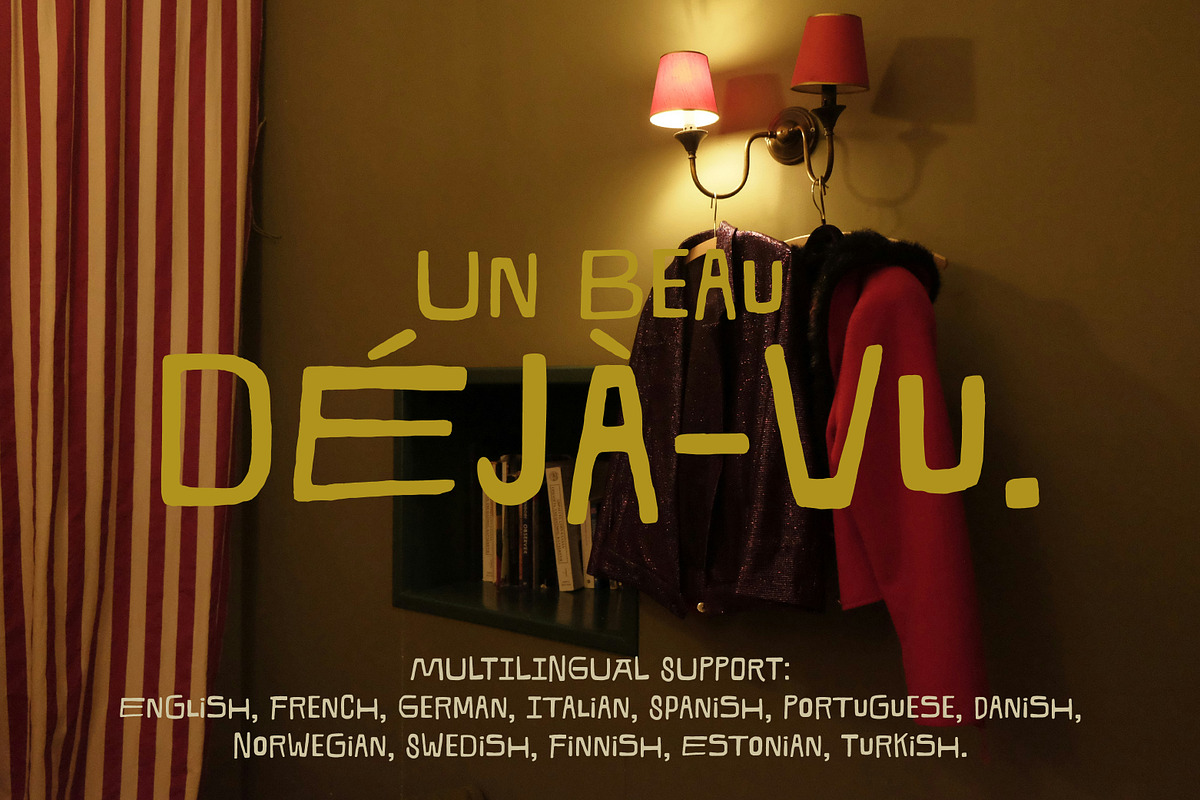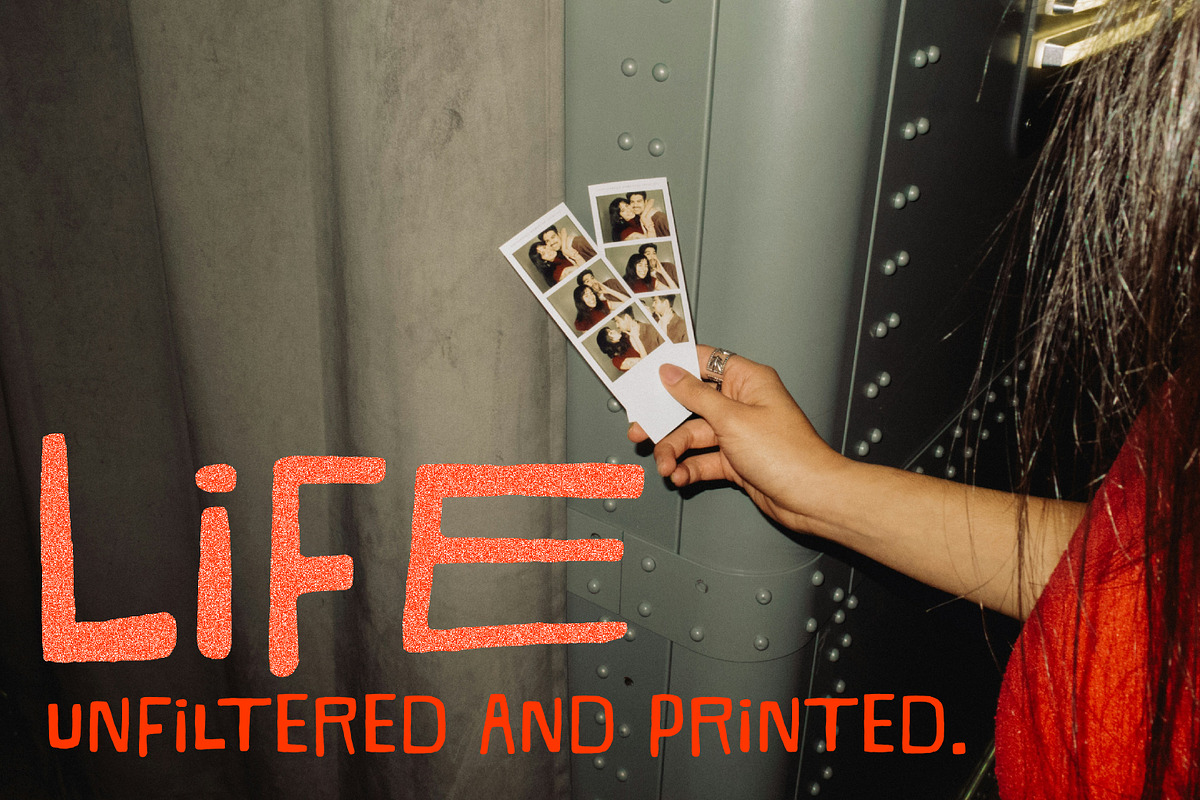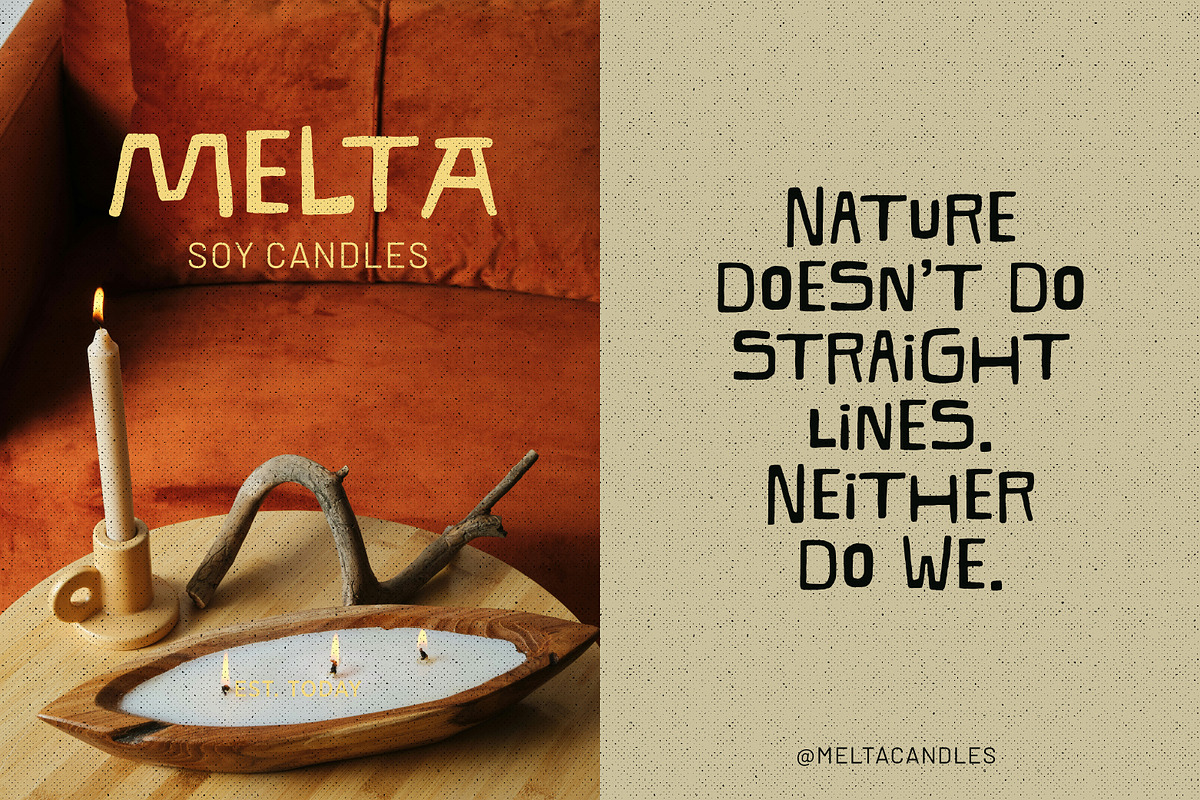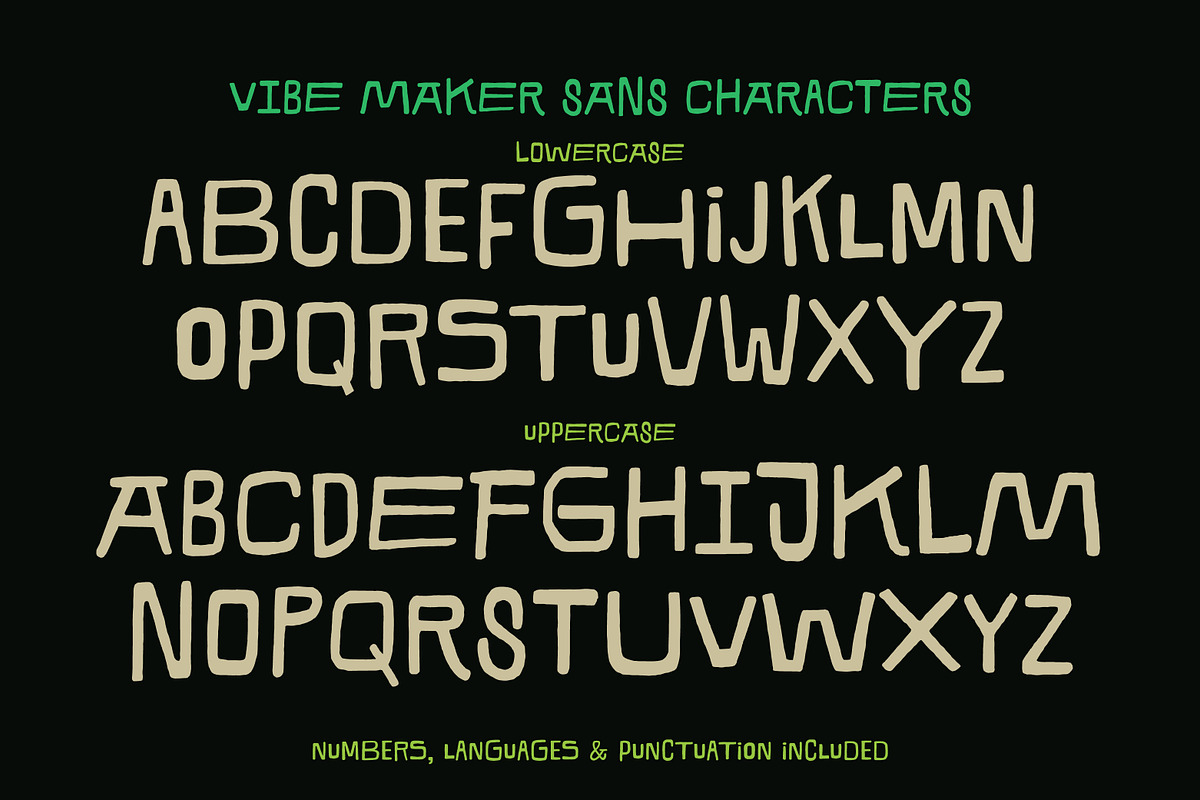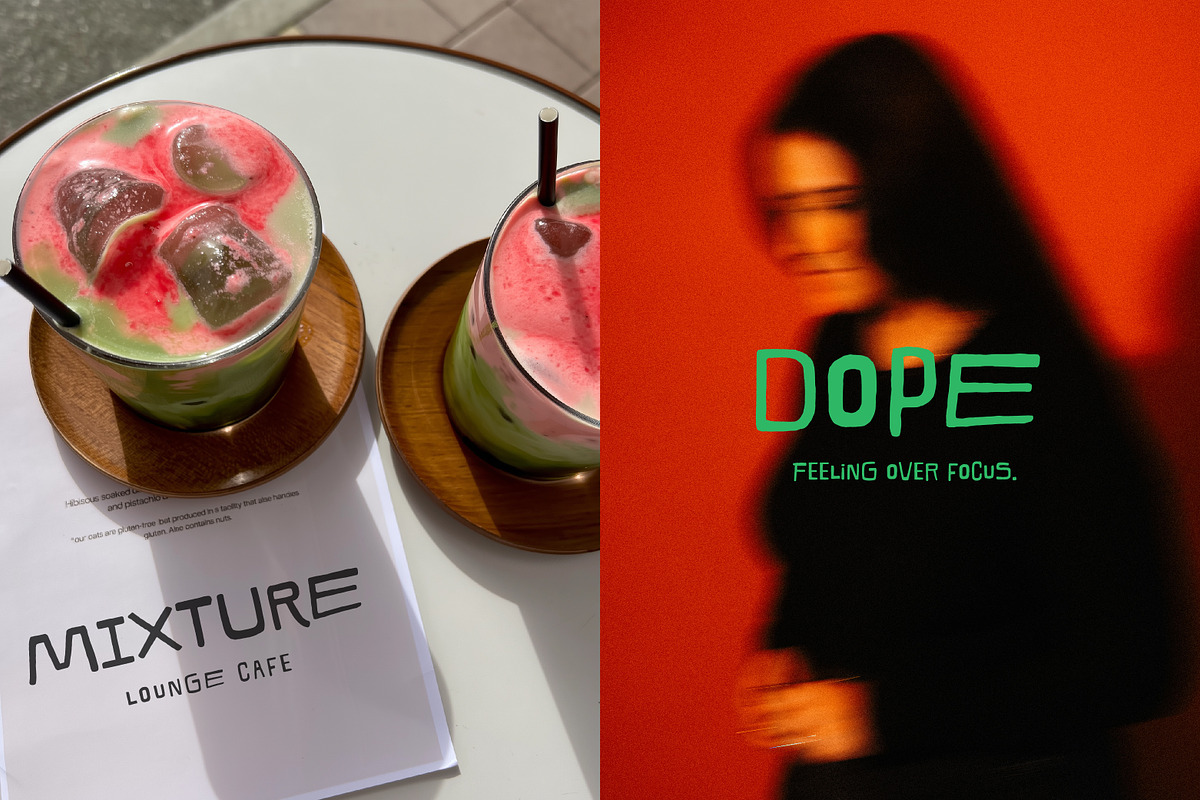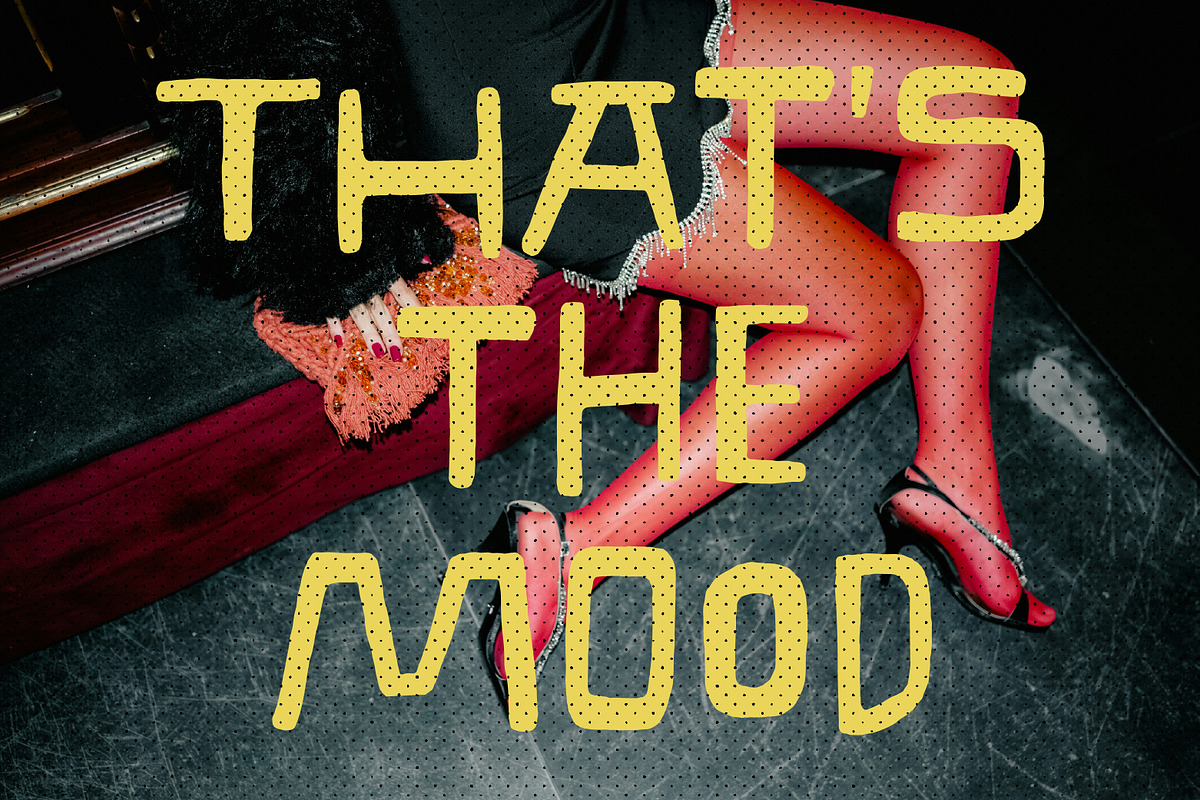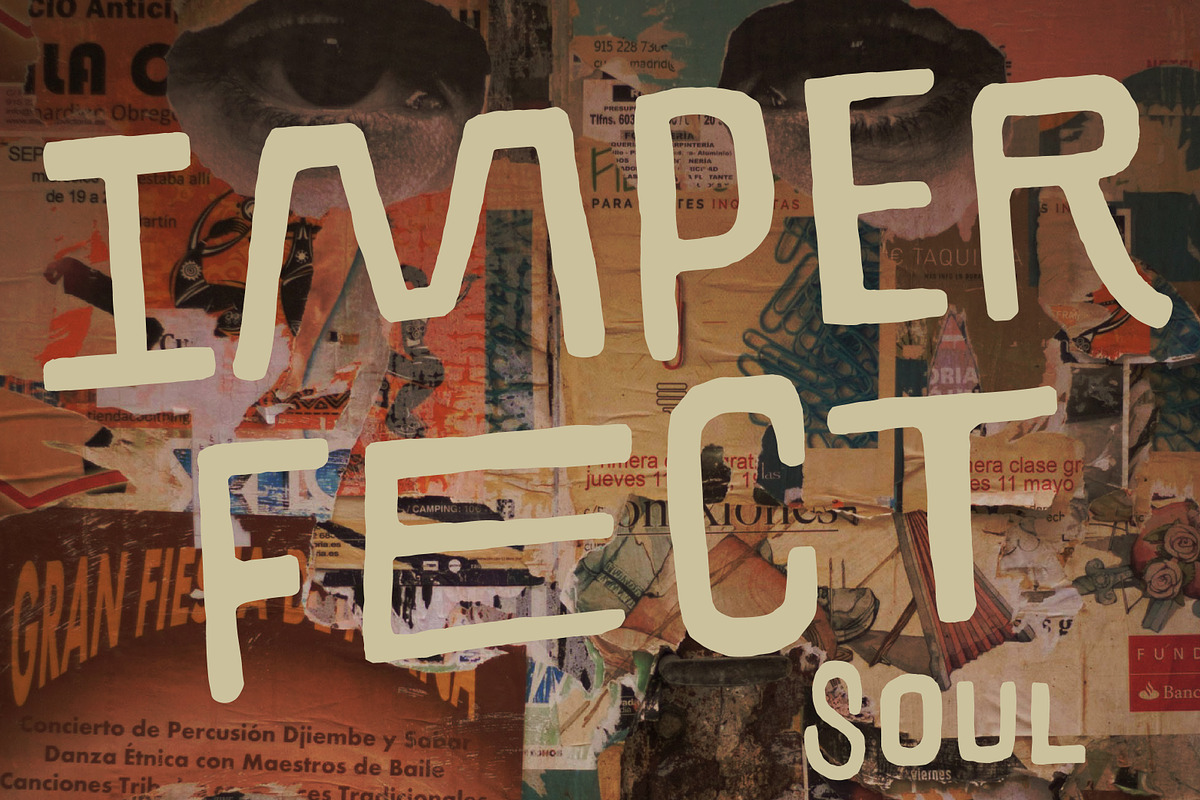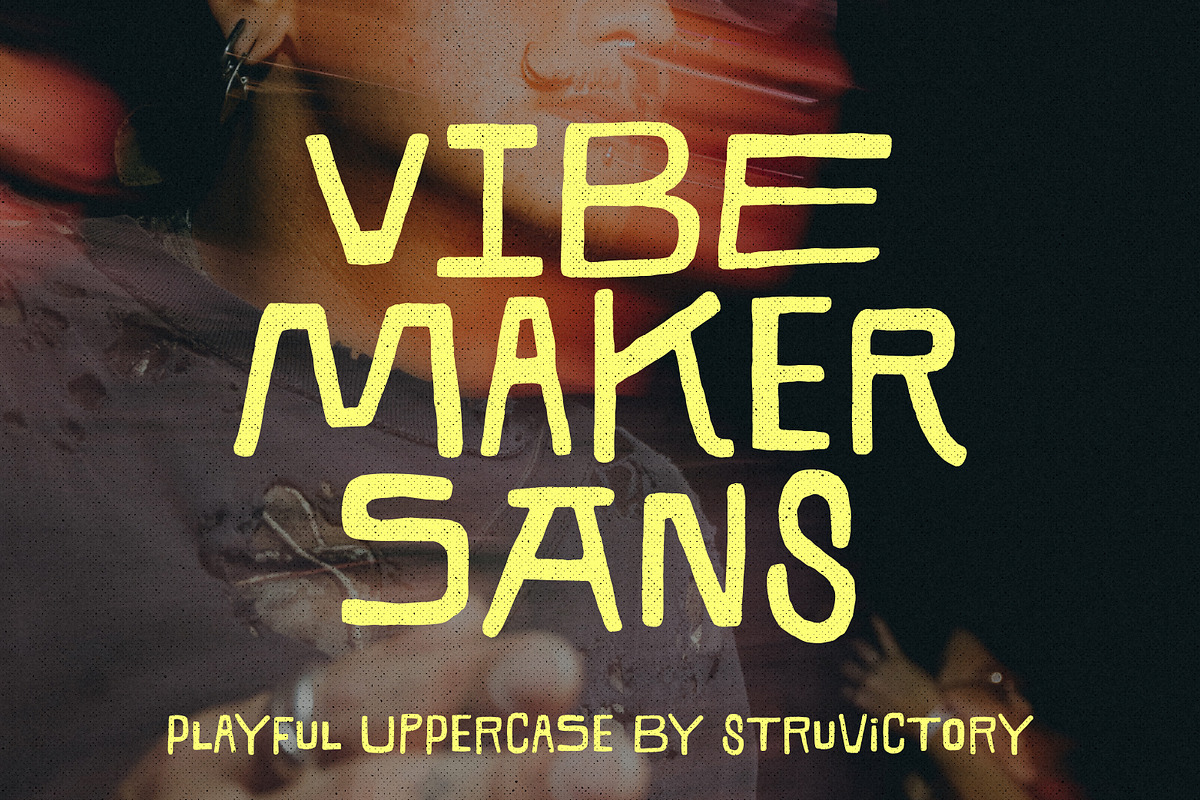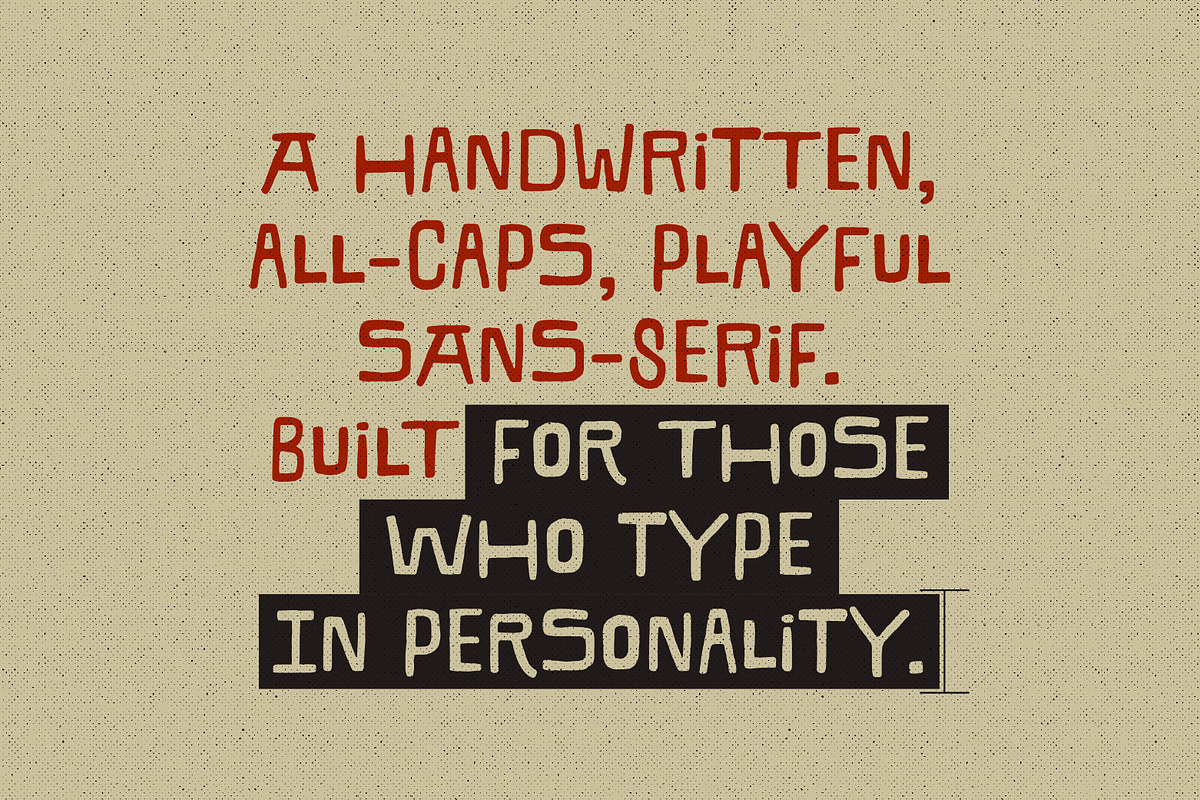
Vibe Maker Playful Imperfect Sans
Vibe Maker Sans is a handwritten, all-caps, playful sans-serif with a soul. Its letters have an organic, uneven flow and a casual confidence, crafted for designers and creators who want their work to feel human and current. Perfect for logos, social media graphics, packaging, or any headline that needs to stand out with authentic, typeable energy.
Vibe Maker Sans supports the most popular latin-based languages, you can check the symbol you need by typing a couple of words in the font preview box.